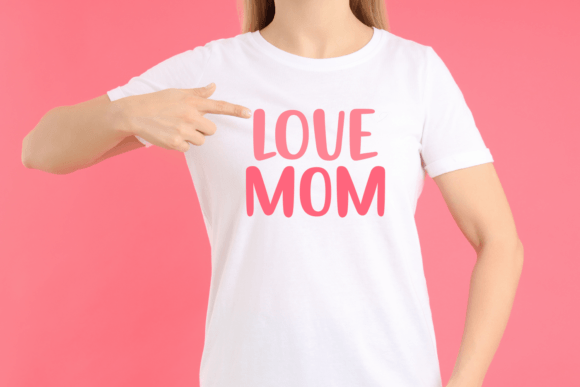
Duo Heart Font
Duo Heart is a whimsical and lovely font that adds a touch of magic to your text. With playful curves and a charming design, it brings a warm and friendly vibe to your projects. Perfect for creating invitations, cards, or any design that calls for a dash of sweetness. Duo Heart is your go-to choice for spreading love and joy through its delightful and enchanting letterforms.